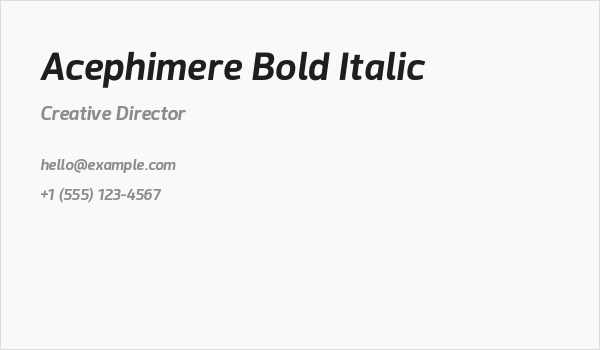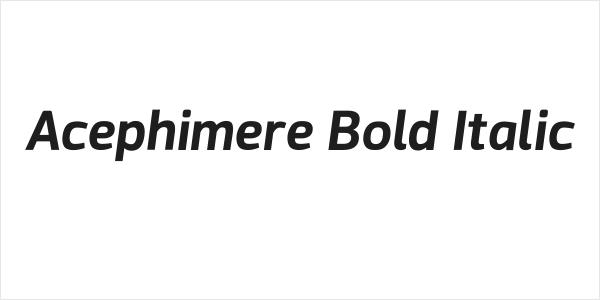
Acephimere Bold Italic Font
Acephimere Bold Italic Description
This font features a bold and italic style, combining strength with a dynamic slant. The characters are well-defined with a modern aesthetic, making it suitable for impactful headlines and titles. The uppercase and lowercase letters maintain a consistent style, with smooth curves and sharp edges that enhance readability. The numerals are clear and distinct, ensuring they stand out in any context. Special characters are included, providing versatility for various design needs.
| Use Case | Headlines, Logos, Advertising |
| Proposed Projects | Ideal for branding, advertising, headlines, and digital media where a strong and modern impression is needed. |